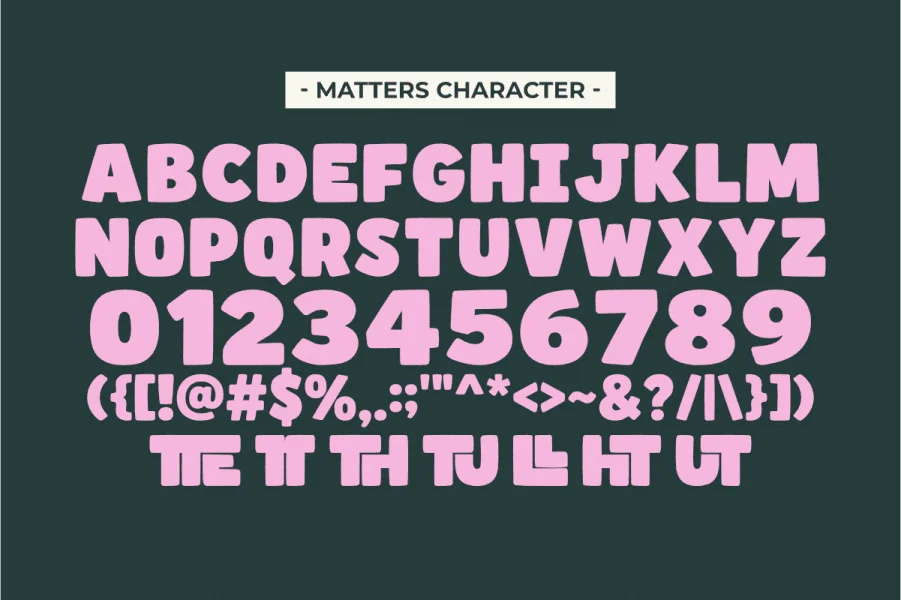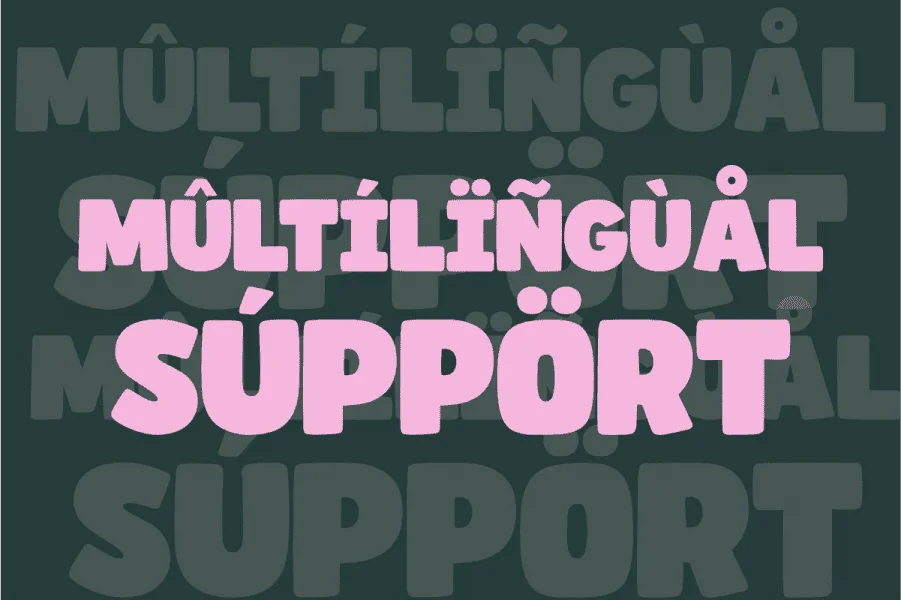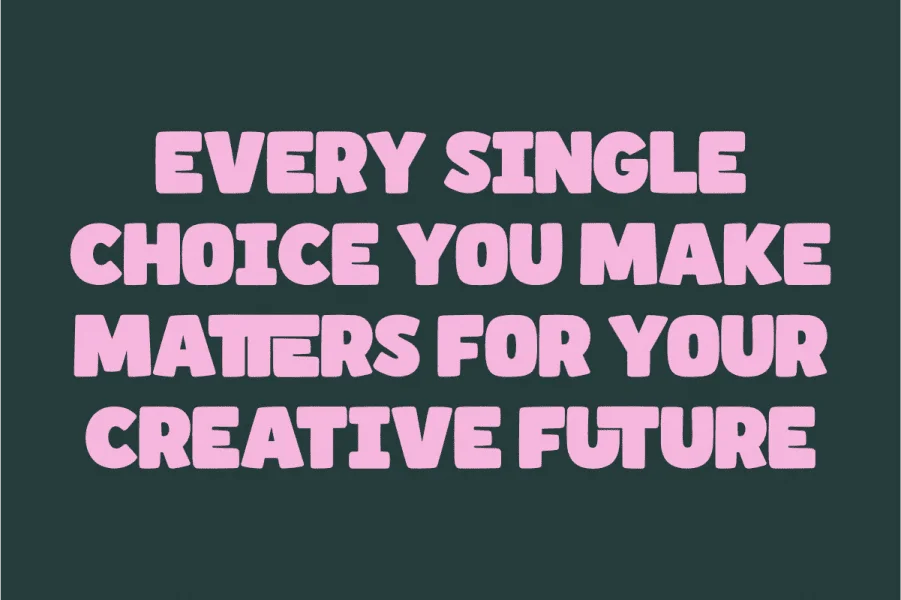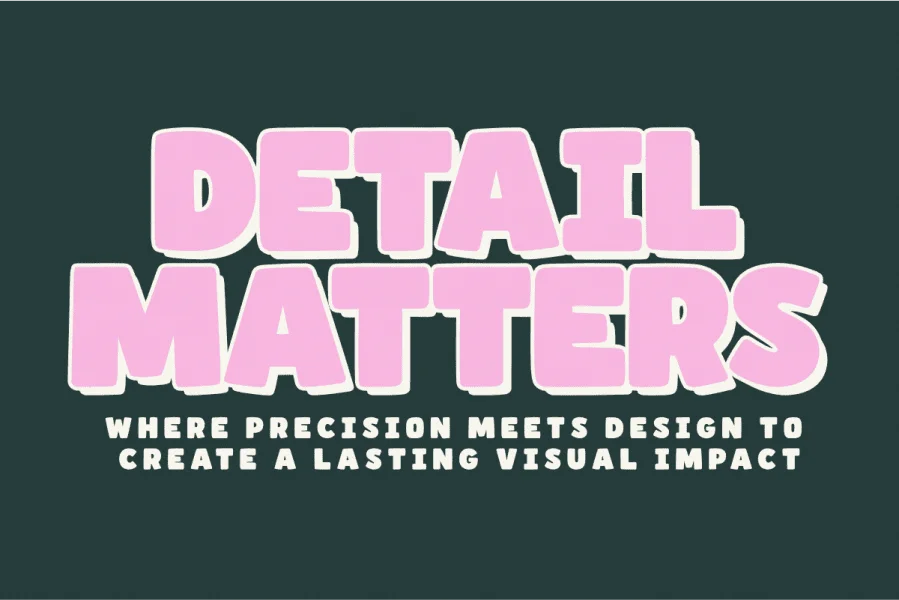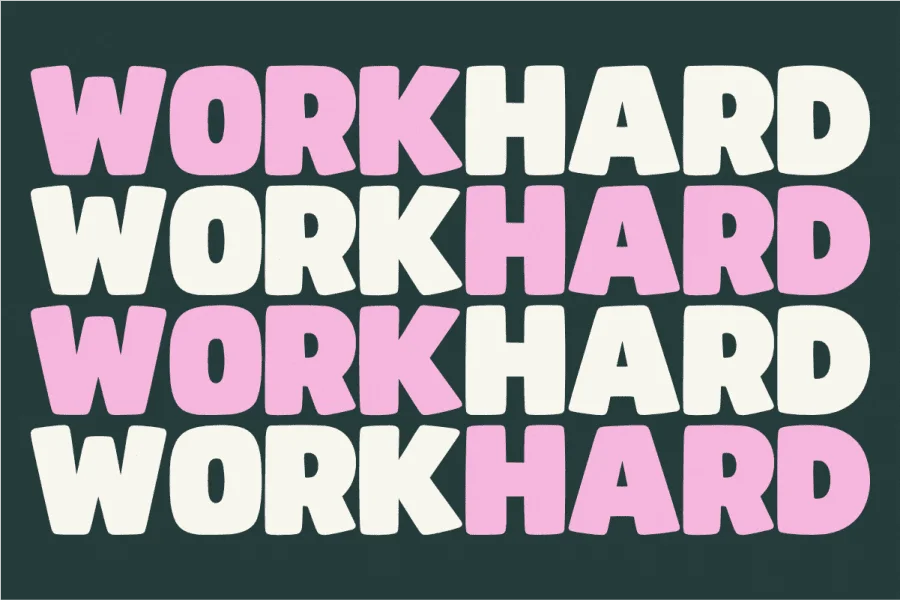
Matters is an ultra-bold, low-contrast sans-serif display typeface with a distinct retro-inspired personality. Its letterforms are characterized by exceptionally thick, pillowy strokes that crowd the counter spaces, creating a dense and impactful visual texture. The overall structure is blocky and tightly tracked, featuring soft, slightly rounded outer corners paired with sharp, abrupt inner joints. This combination of heavy volume and subtle organic curves gives the typeface a playful, hand-rendered feel while maintaining a solid, architectural presence.
Designed primarily for high-visibility display use, Matters excels in contexts that require maximum graphic impact. It is well-suited for bold editorial mastheads, poster designs, streetwear branding, and creative packaging layouts. The font's chunky, expressive letterforms and unique ligatures make it an excellent choice for projects seeking a nostalgic yet contemporary aesthetic that demands attention.